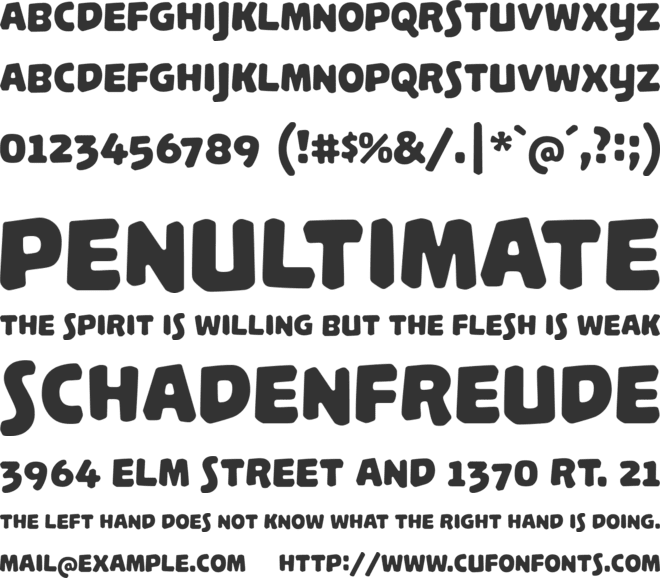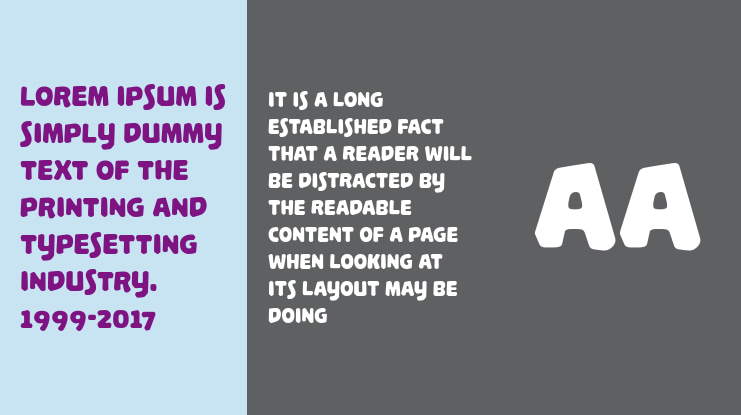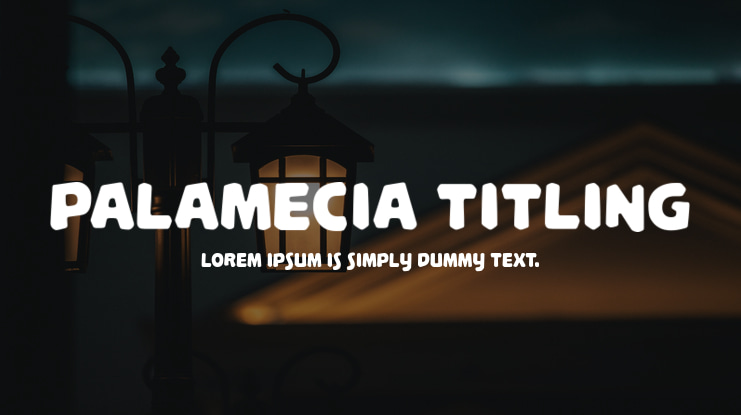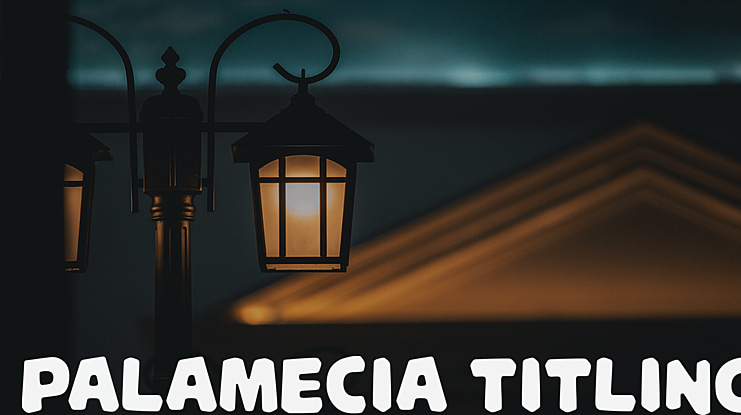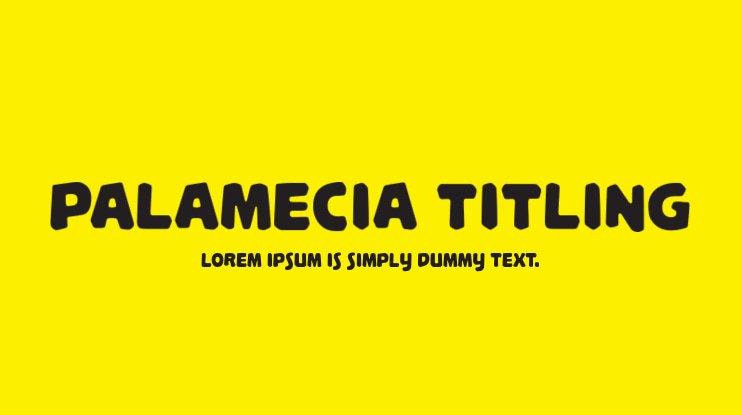
Palamecia Titling Font
Ray Larabie
Palamecia was designed to endure scaling and blurring on various user interface displays. At first glance it looks like a cartoon typeface, which was the goal, but the design of each character was informed by the effects of pixel scaling on legibility. Rather than using pen strokes as a base for each letter's design, Palamecia's shapes were designed as cutout silhouettes which were gradually whittled and chipped away. If you require lowercase, check out the regular Palamecia typeface. http://typodermicfonts.com/palamecia